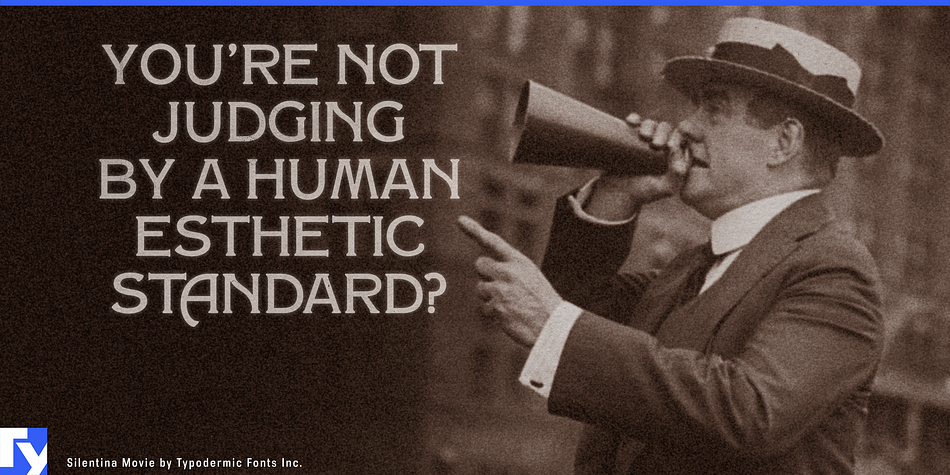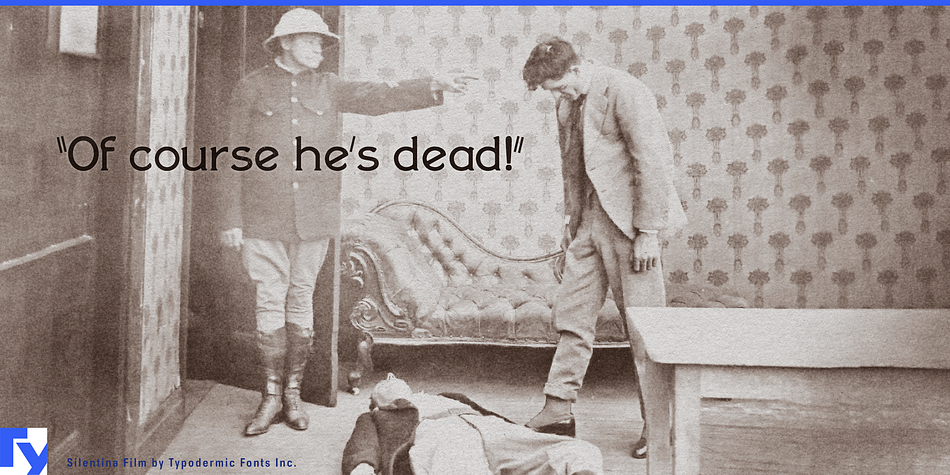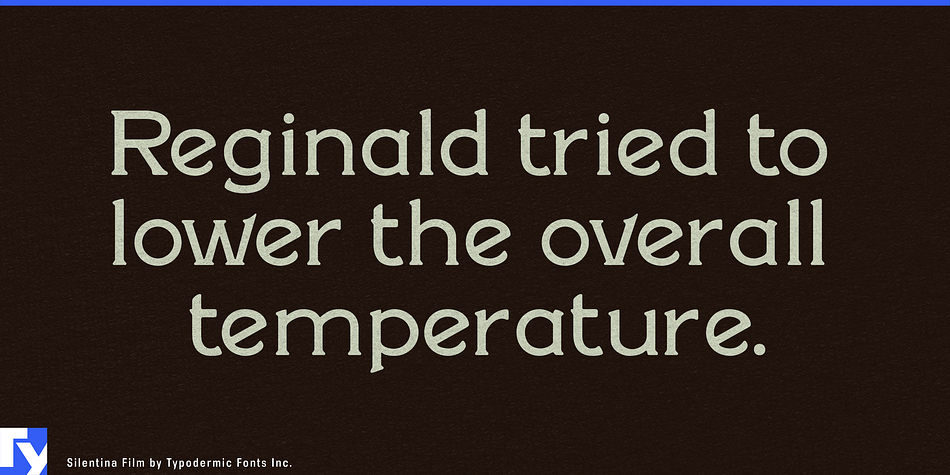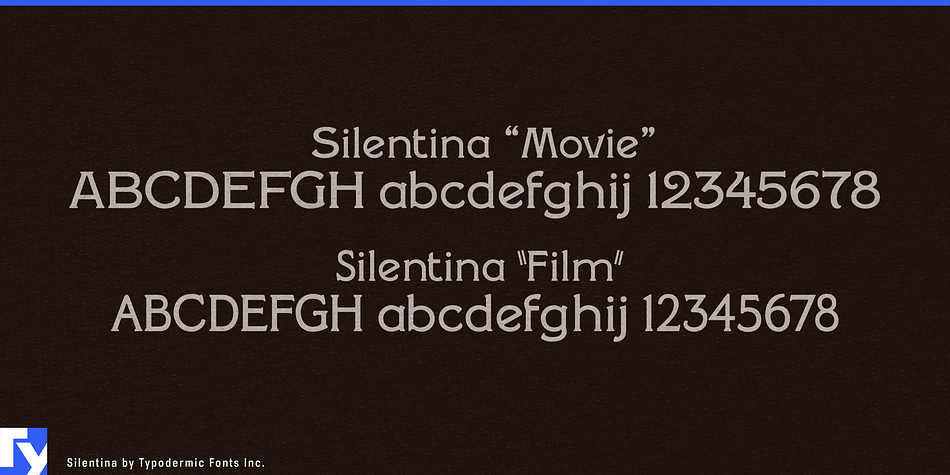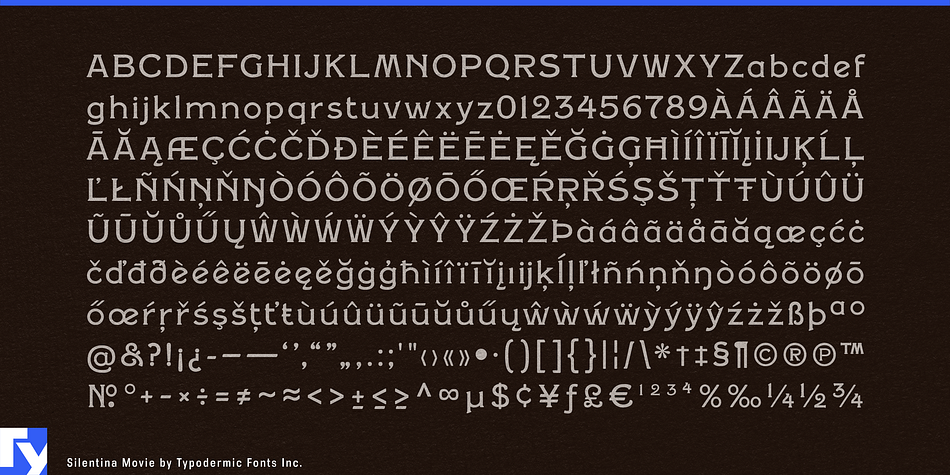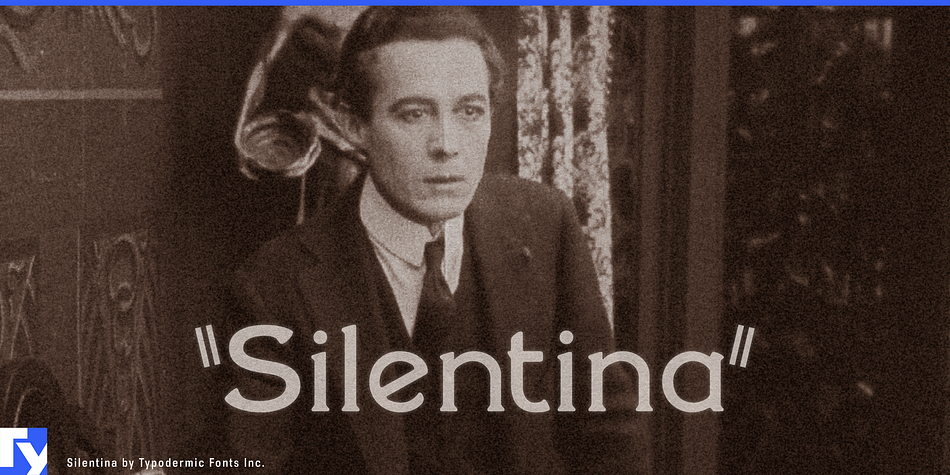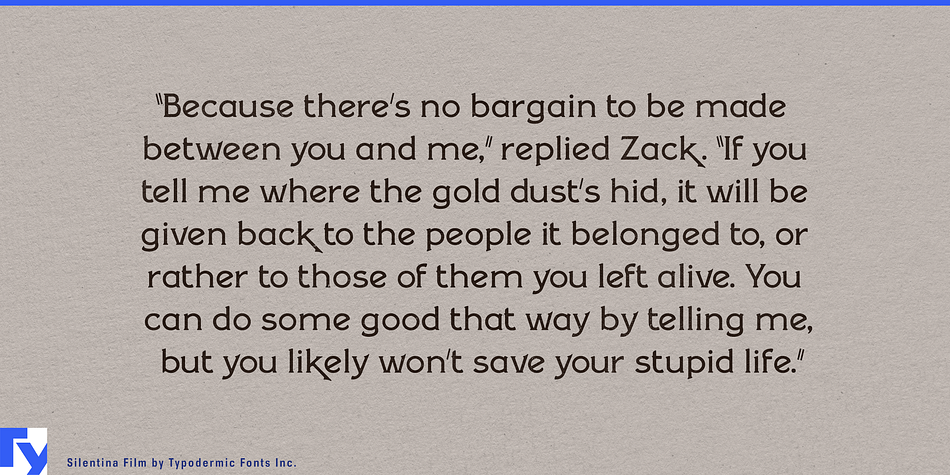
Silentina is a retro font family. This typeface has two styles and was published by Typodermic Fonts Inc.
During the era of Silent Movies, stars like Buster Keaton, Mary Pickford, Clara Bow, and Rudolph Valentino graced the screen with their expressive faces. When they had something important to say, intertitles conveyed their message to the spellbound audience. Short blocks of text told them where and when the story took place, plot details and “meanwhile back at the ranch…” Cast your text in the same glamorous style of those unsung heroes of the silent screen era, the intertitles.